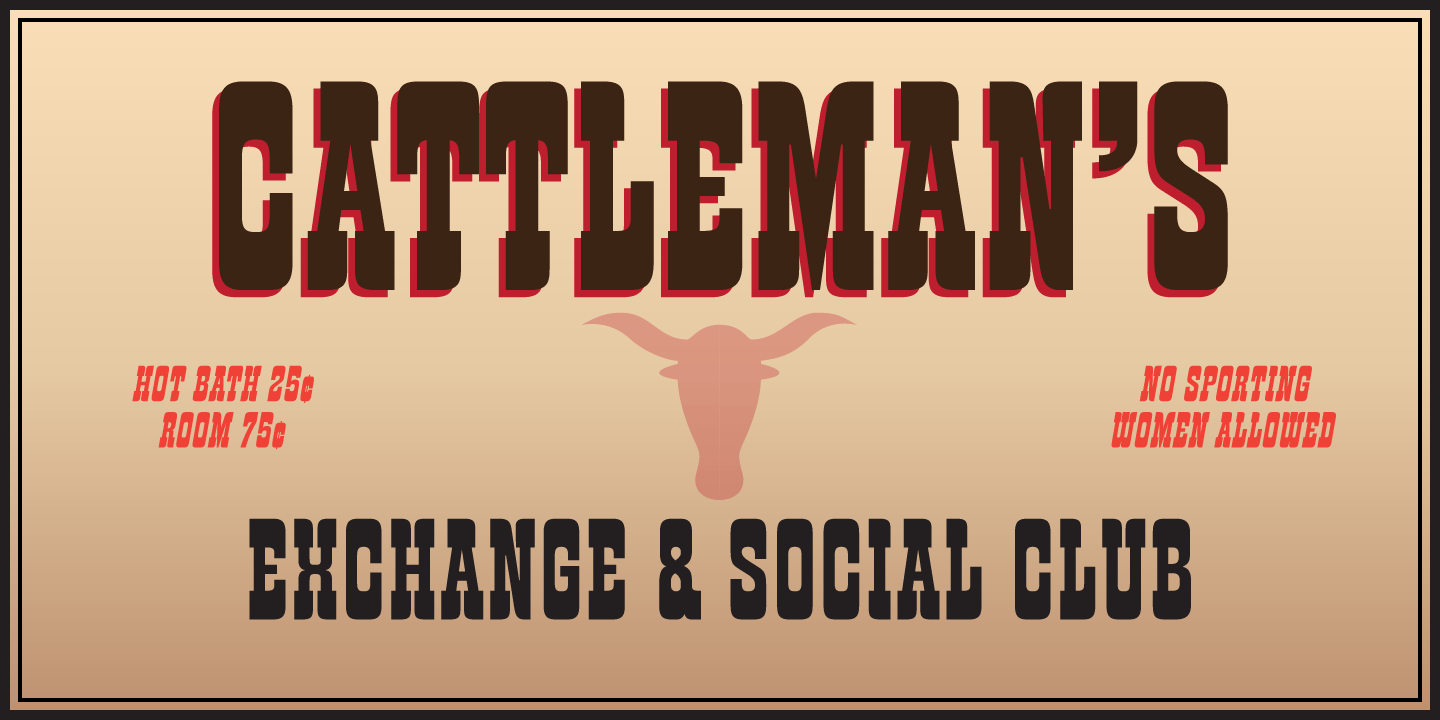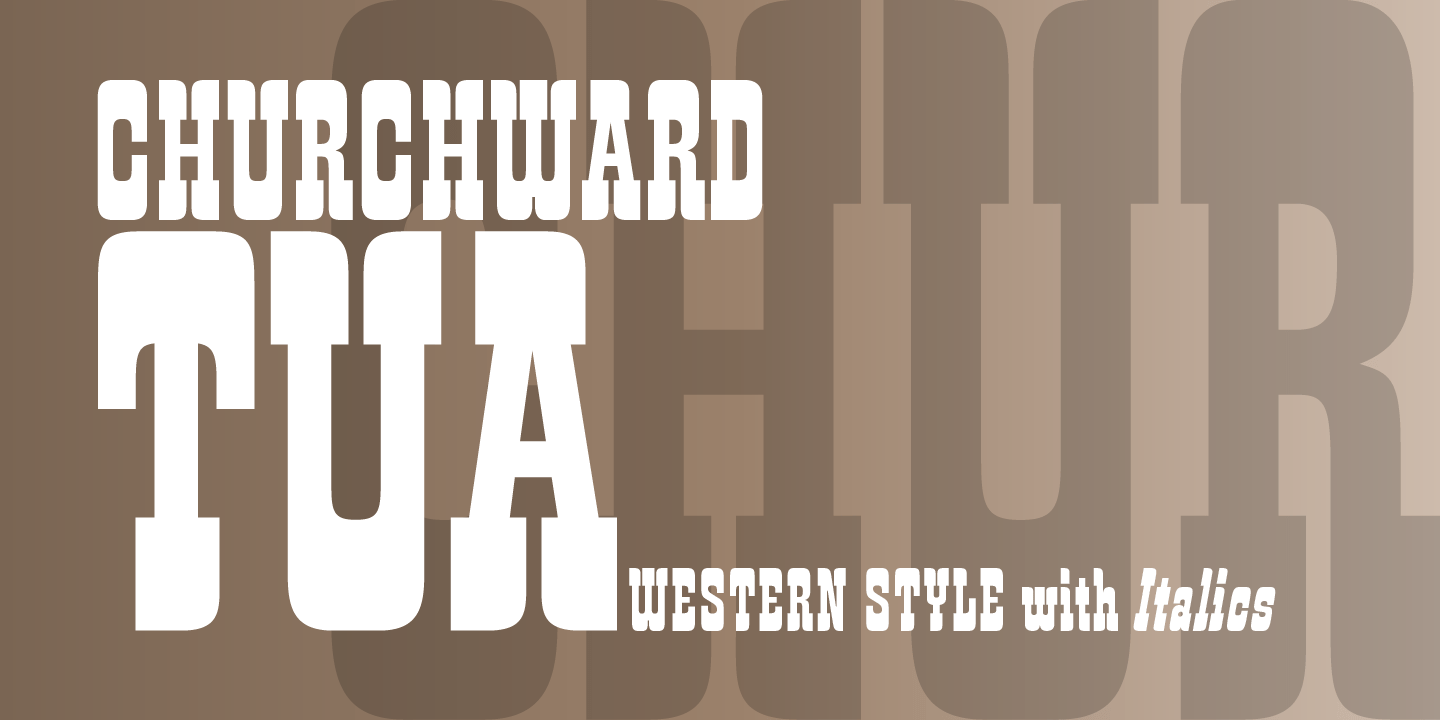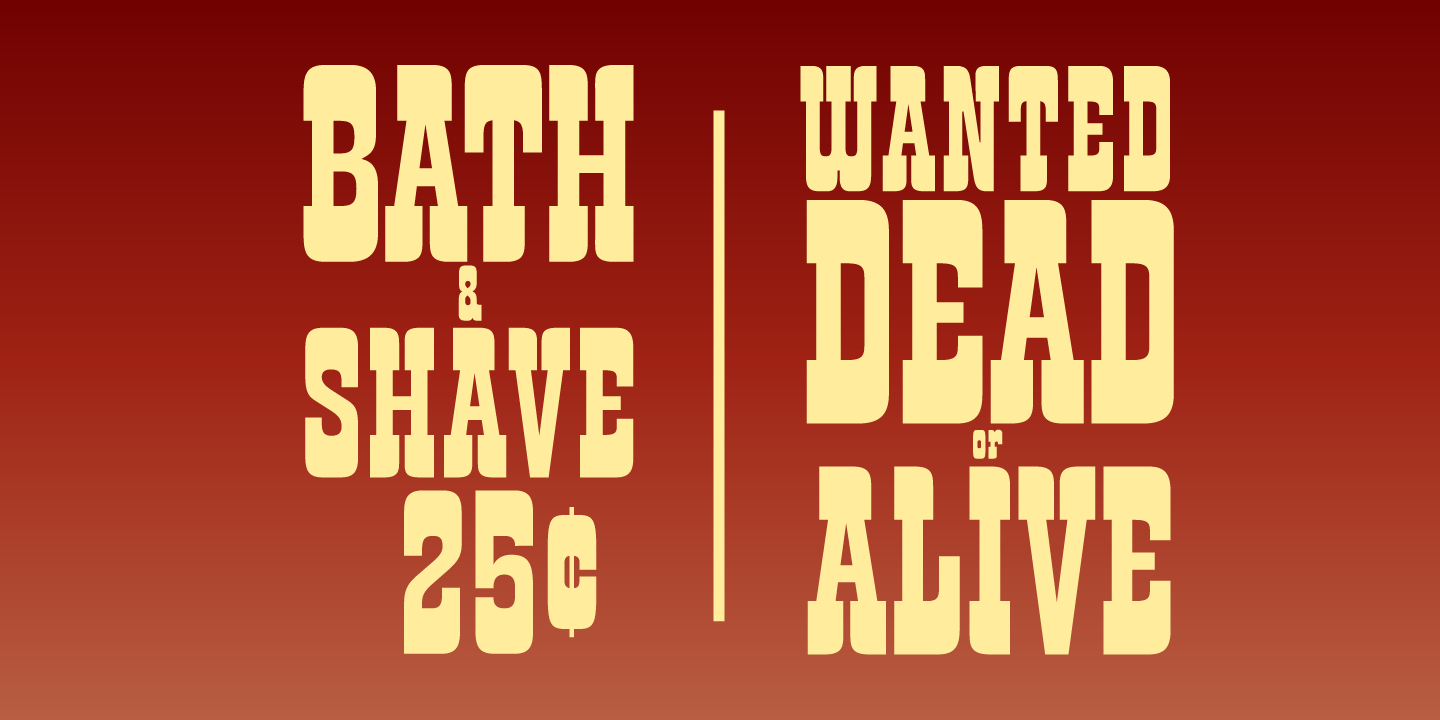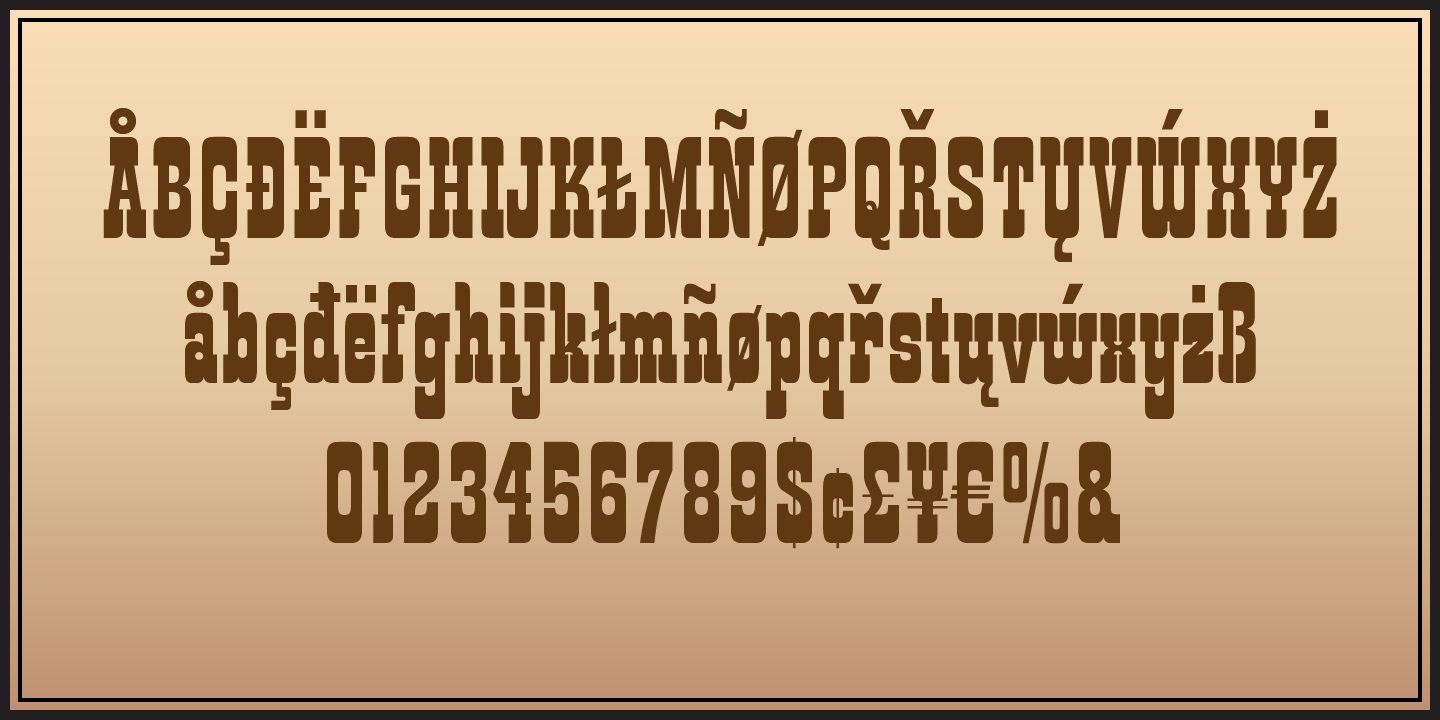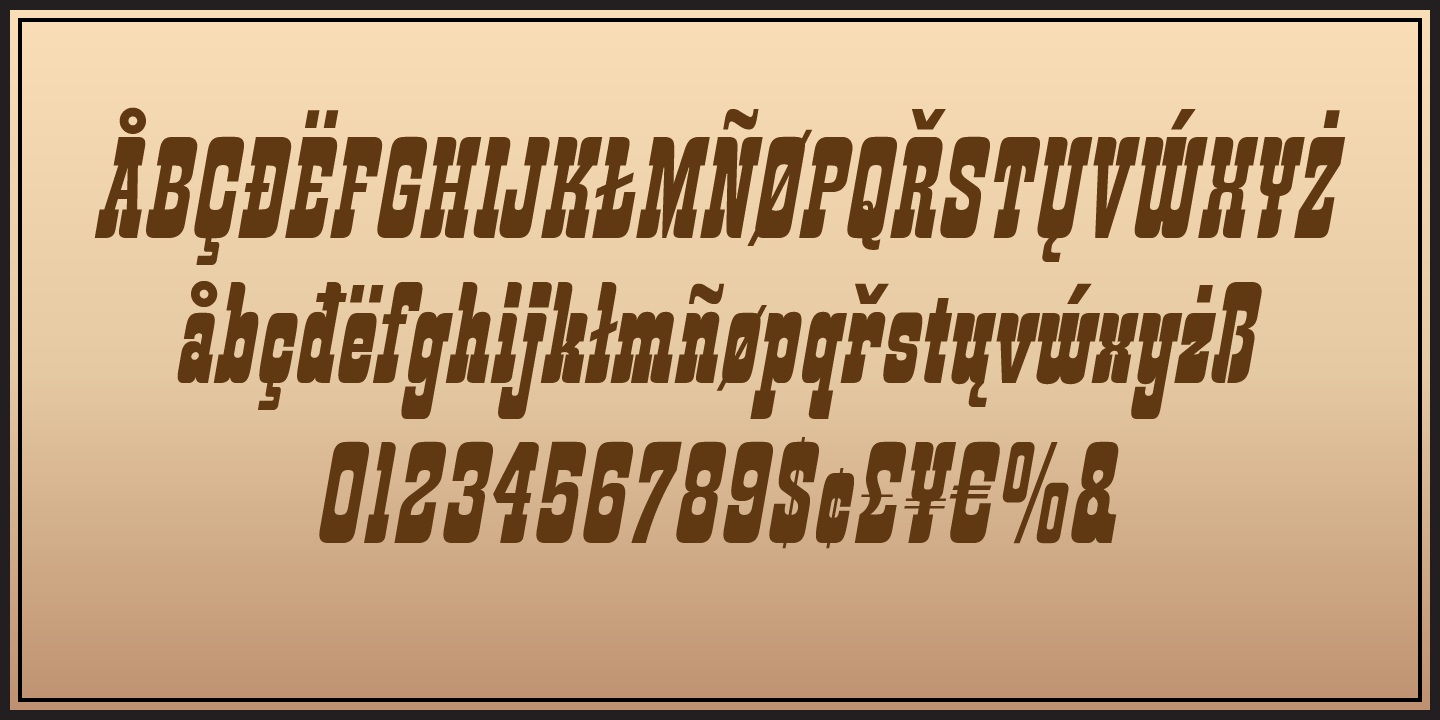
Churchward Tua
Font Family by BluHead Studio
Churchward Tua and Churchward Tua Italic are two more fonts from the unique library of Joseph Churchward type designs. The Tua fonts sport an Old West, cattle drive sort of look. One can imagine Tua being used on the swinging front doors of the local saloon or jailhouse. These fonts are perfect for headlines, posters or wherever you want to express your inner cowboy. Giddy-up!